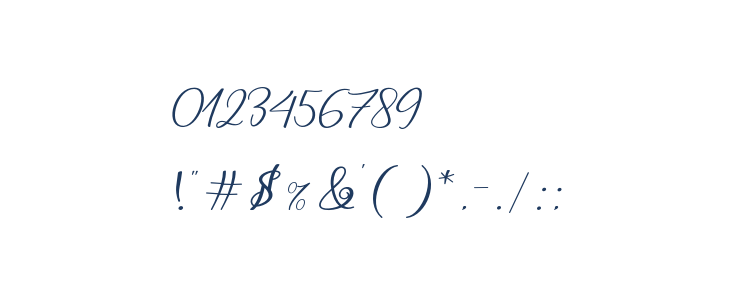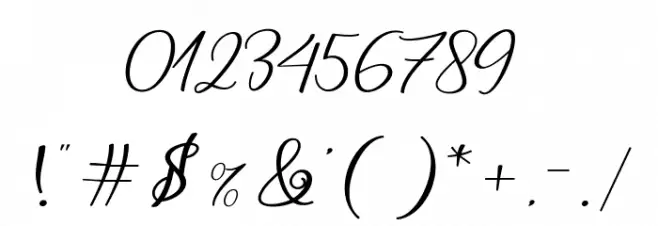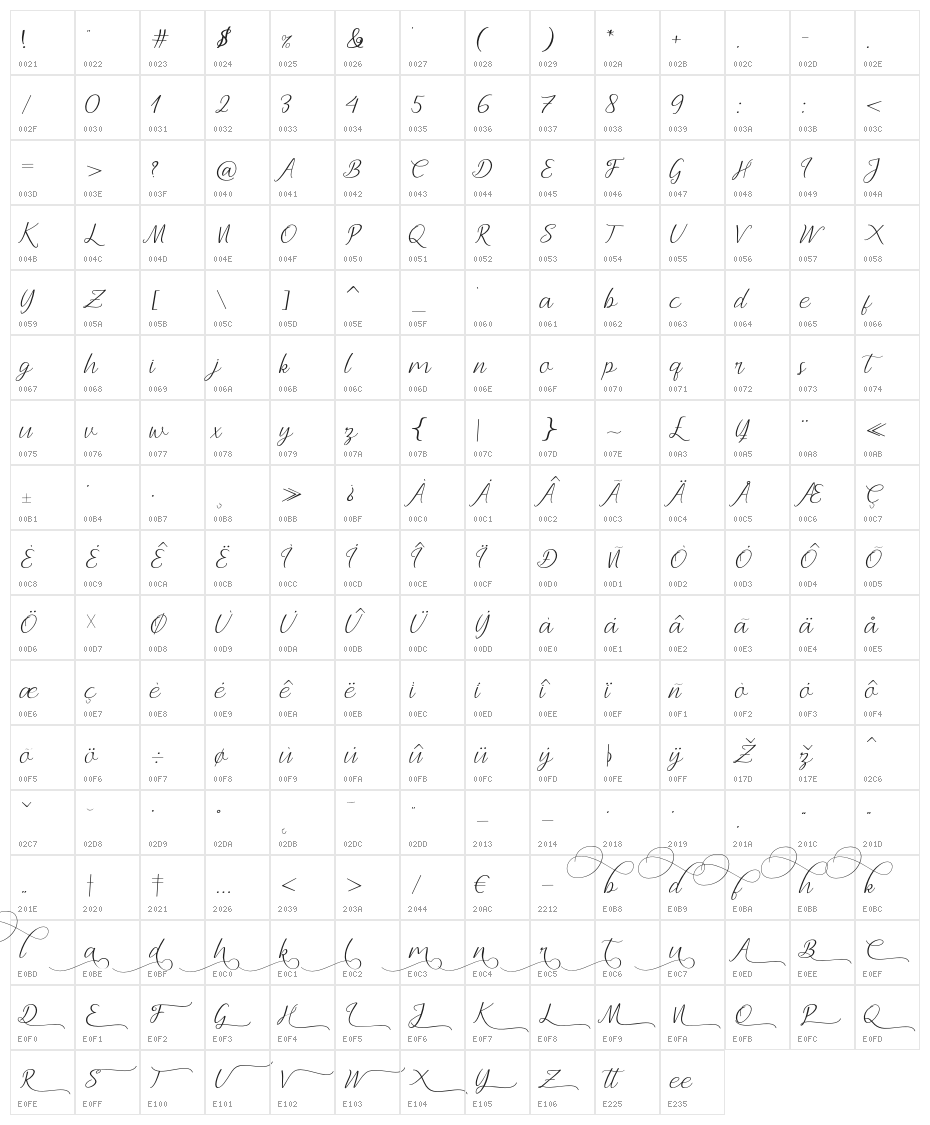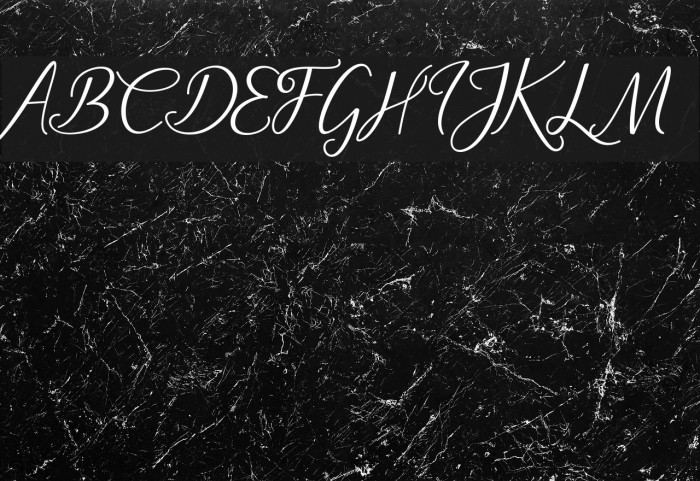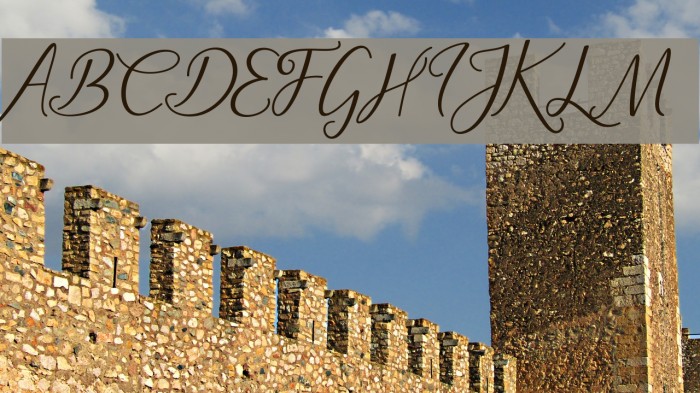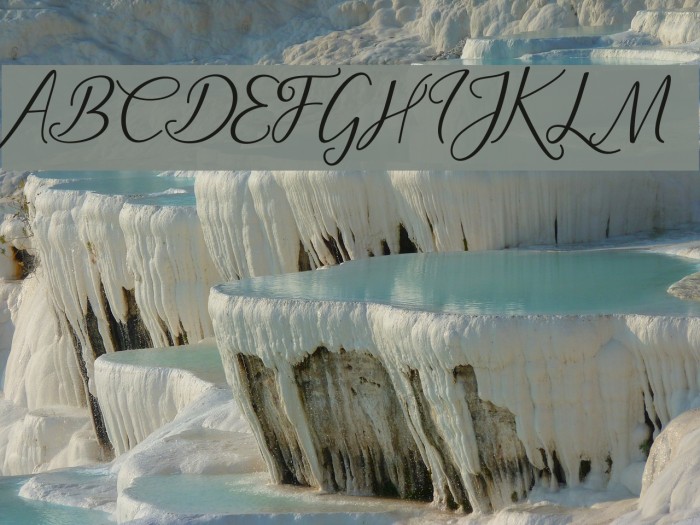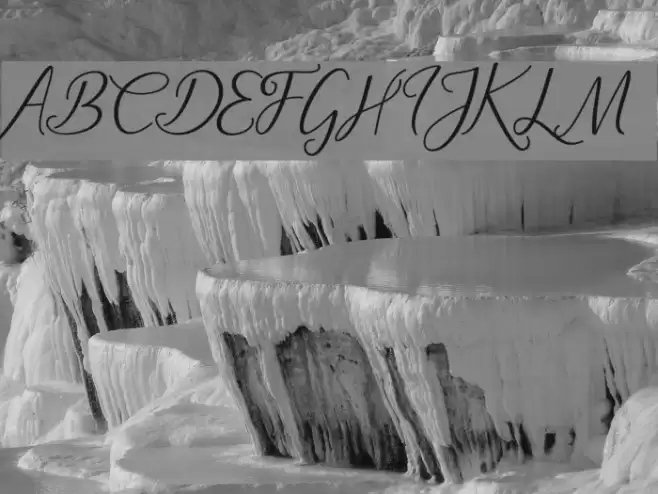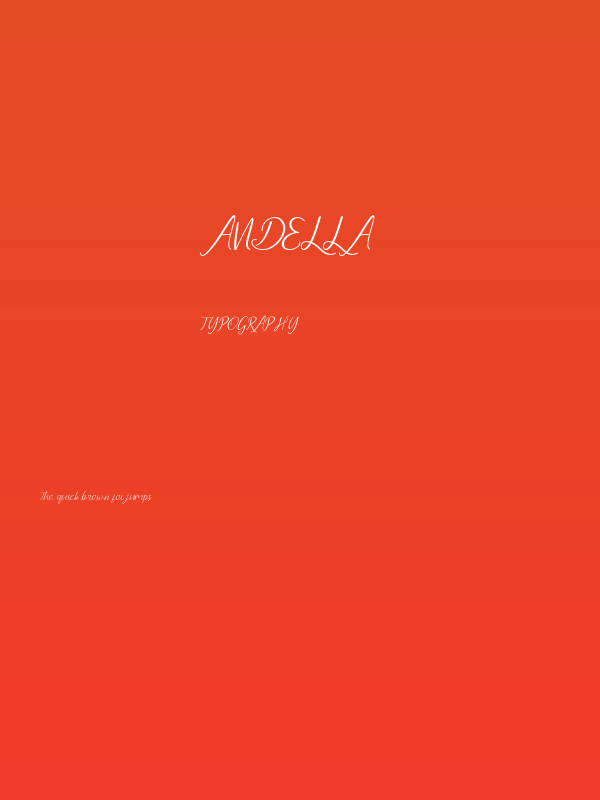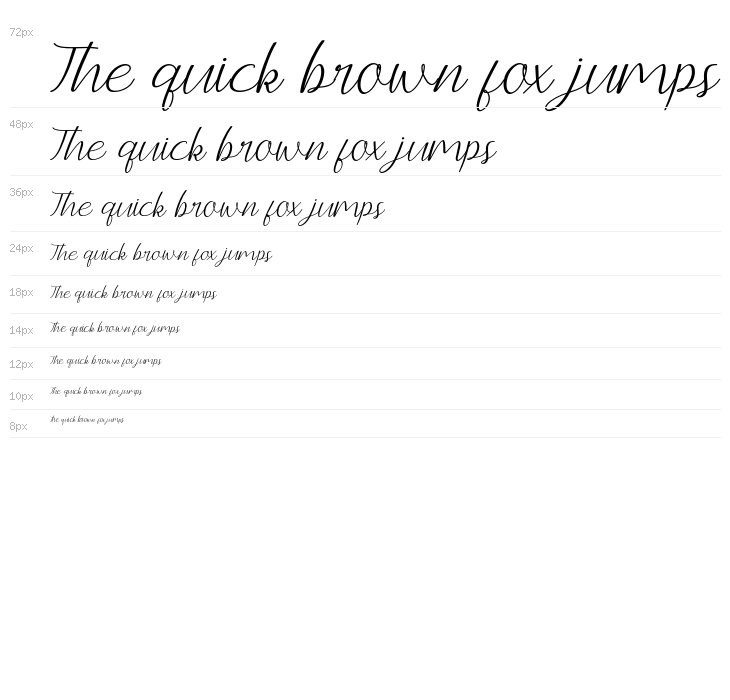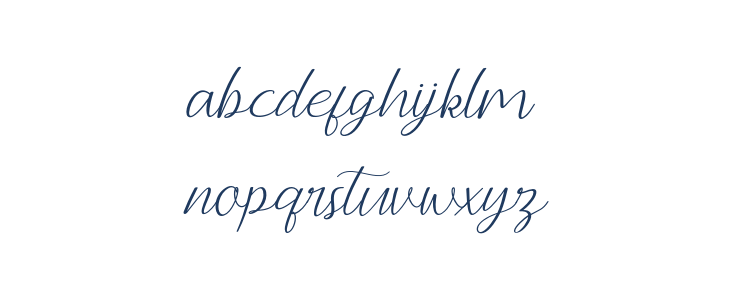
Andella Font
Andella Description
This elegant script font features flowing, cursive letterforms that exude a sense of sophistication and grace. The uppercase letters are characterized by their sweeping curves and intricate loops, while the lowercase letters maintain a consistent fluidity and charm. The numerals are styled to match the overall aesthetic, offering a cohesive look across all characters. Special characters are thoughtfully designed to complement the script style, adding versatility to the font. The font's delicate strokes and refined appearance make it ideal for projects that require a touch of elegance and class.
| Proposed Projects | Wedding invitations, luxury branding, elegant stationery, and high-end product packaging. |